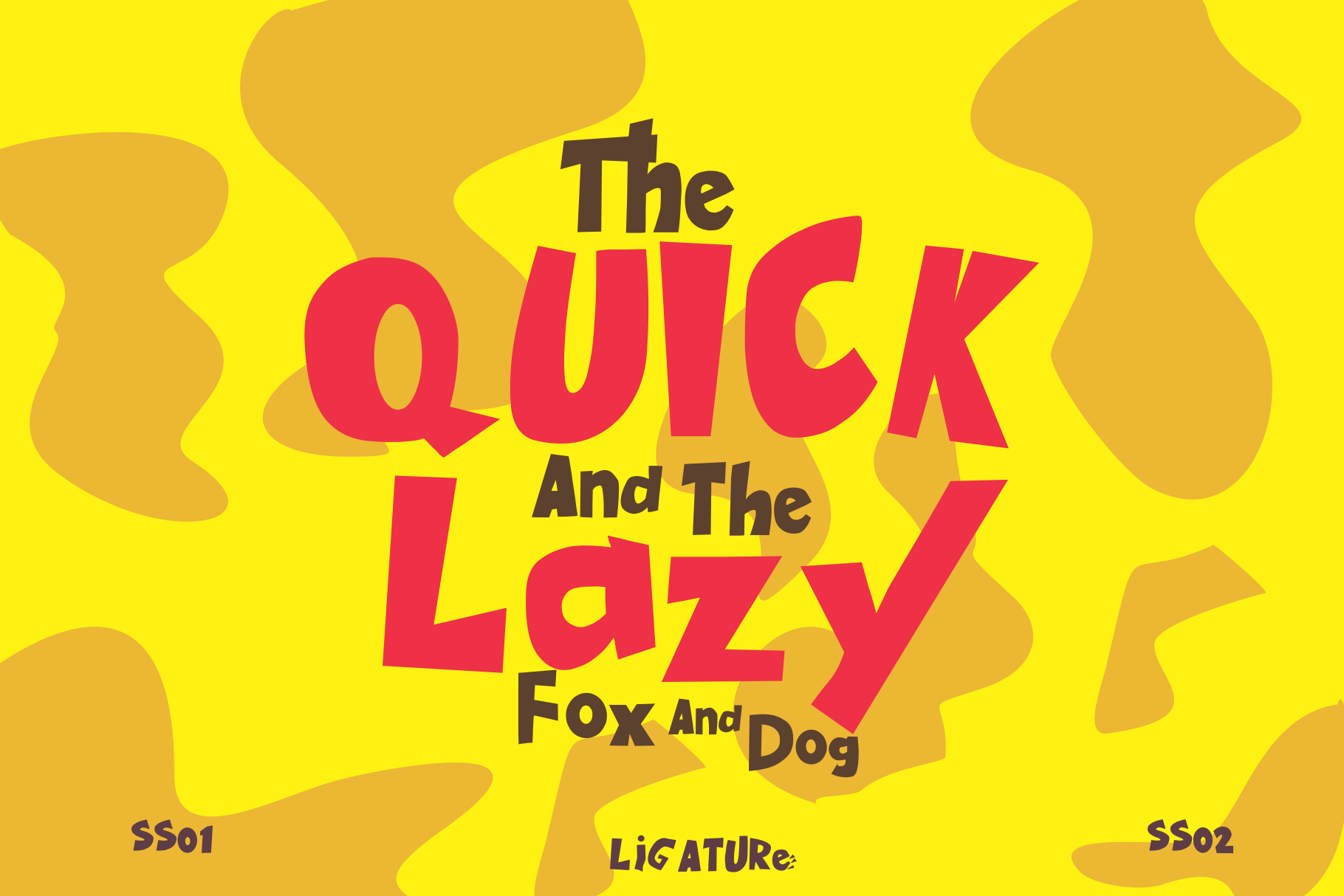
CARTBOOM cartoon playfull font
Cartboom Fonts are inspired by cartoon fonts and fonts with themes around the world of children, or more playful font fonts are layered fonts, so we make variations for designs with this font. Can be used for products that are playful. for the:
- logo -snack products -t shirt design and so on.